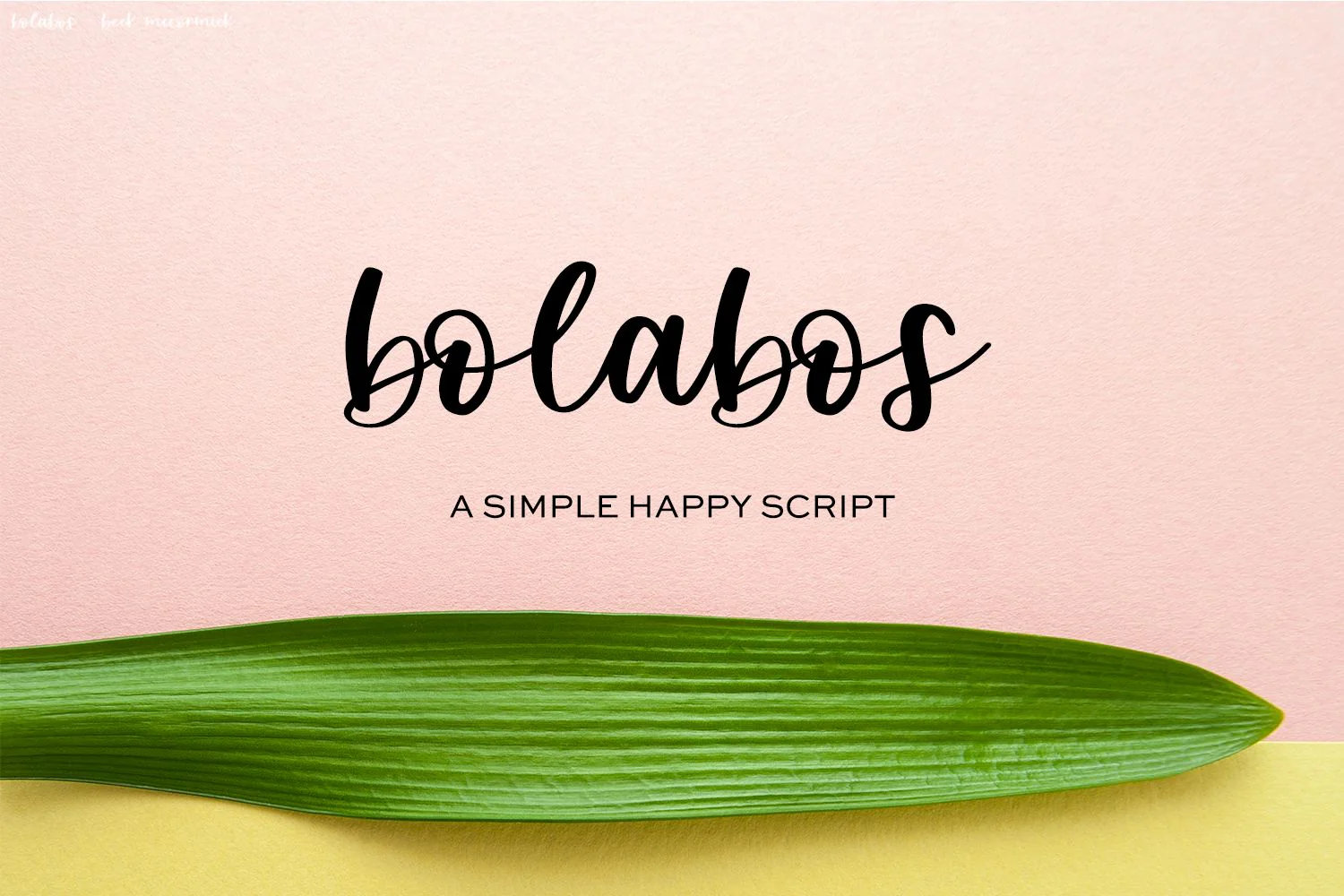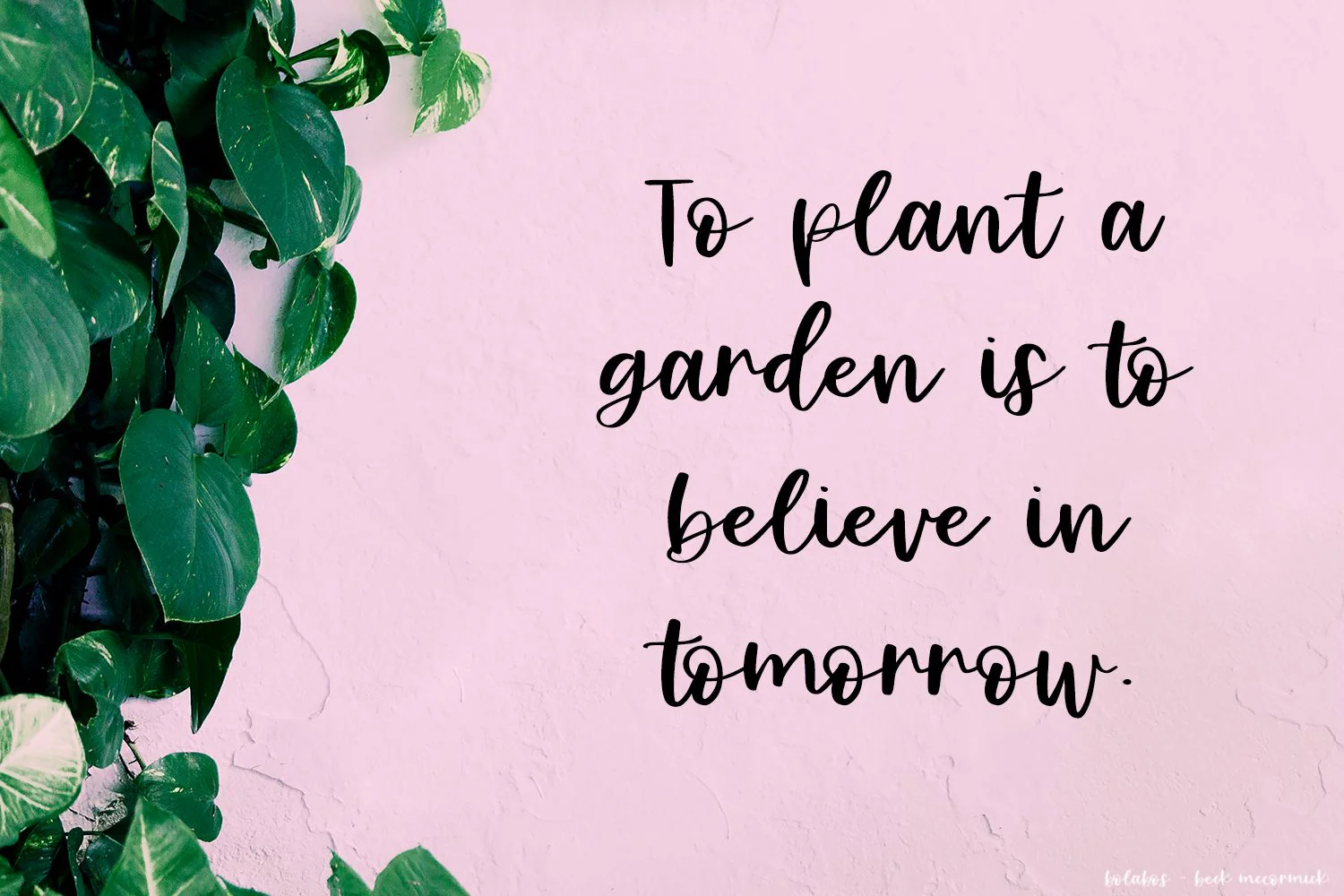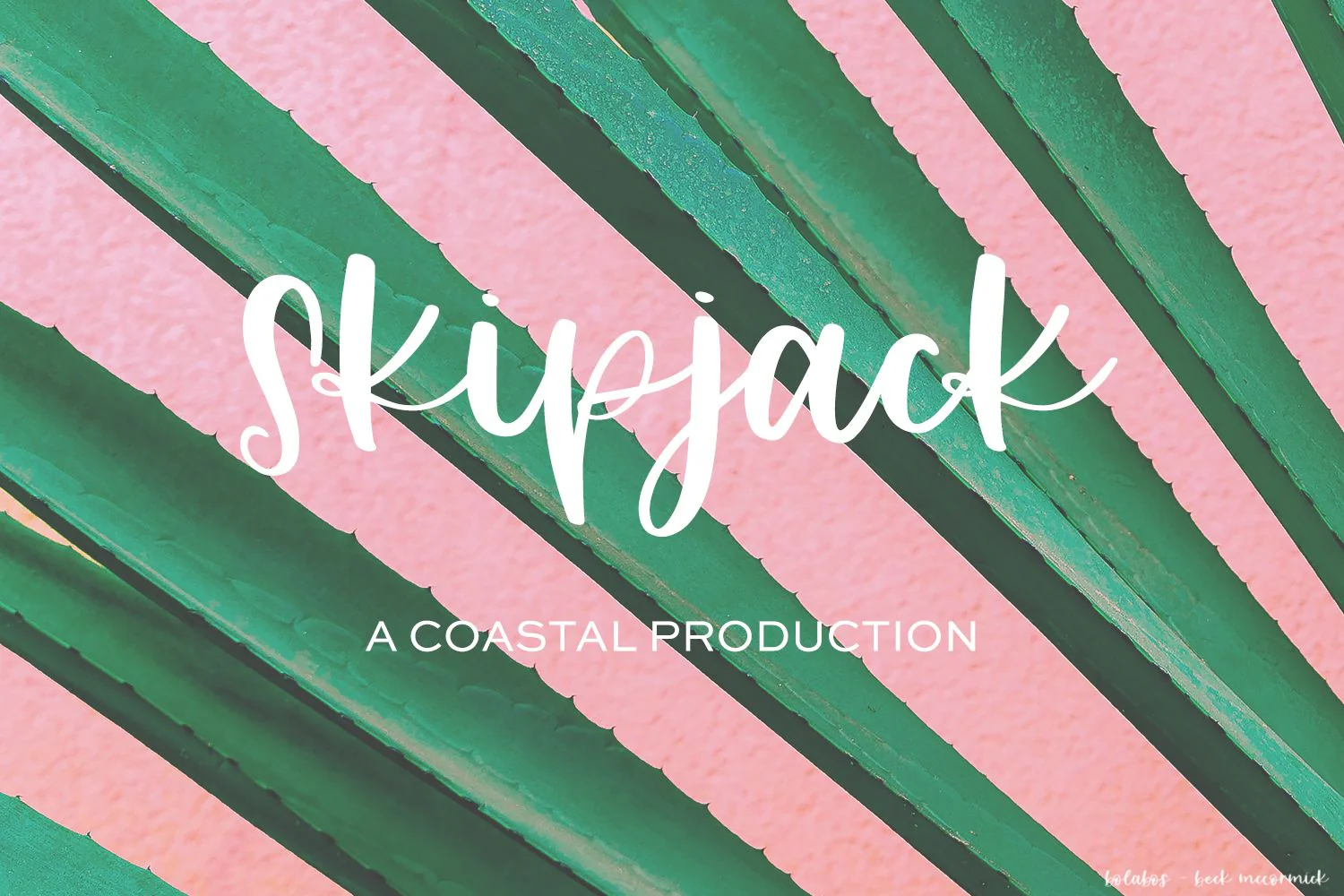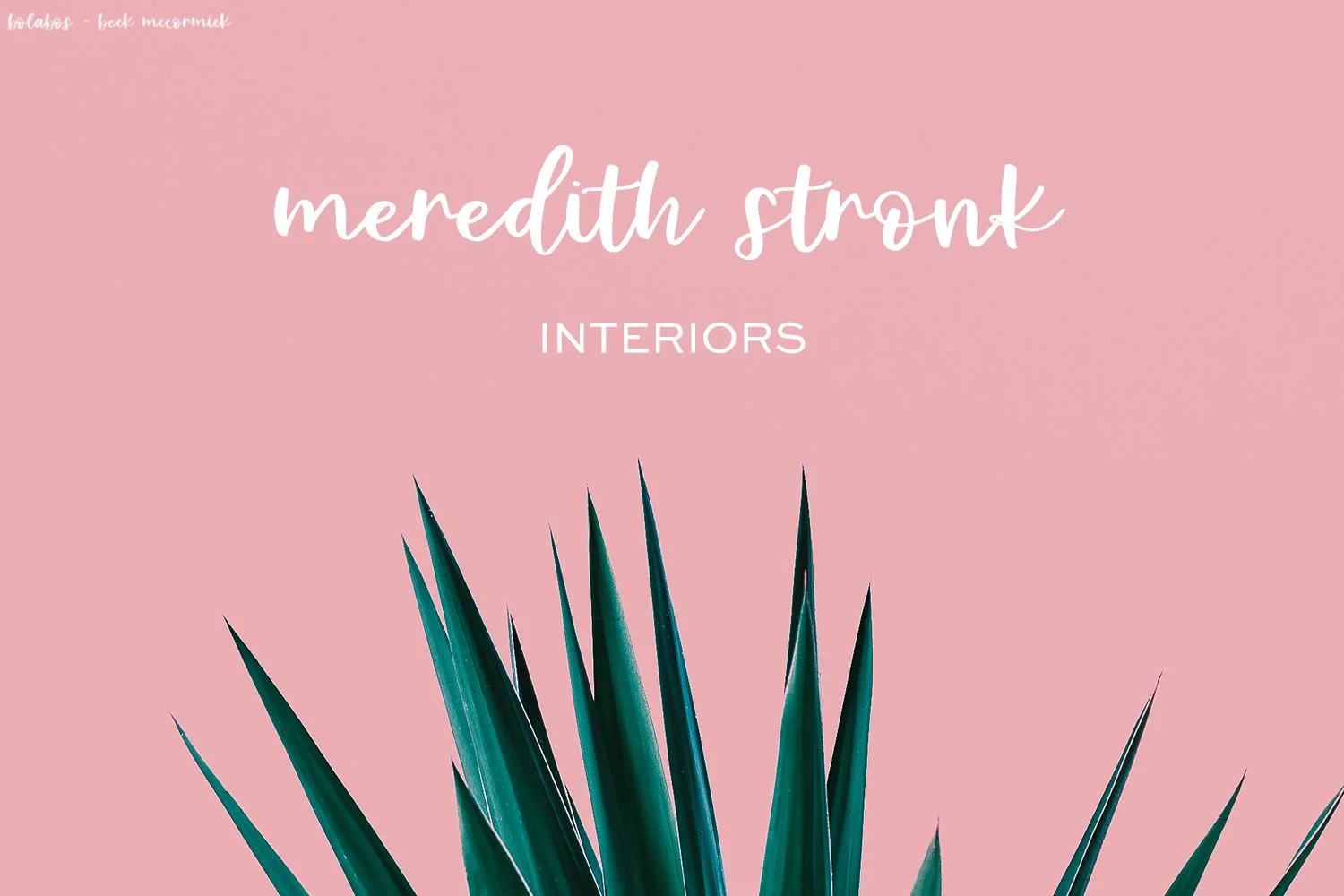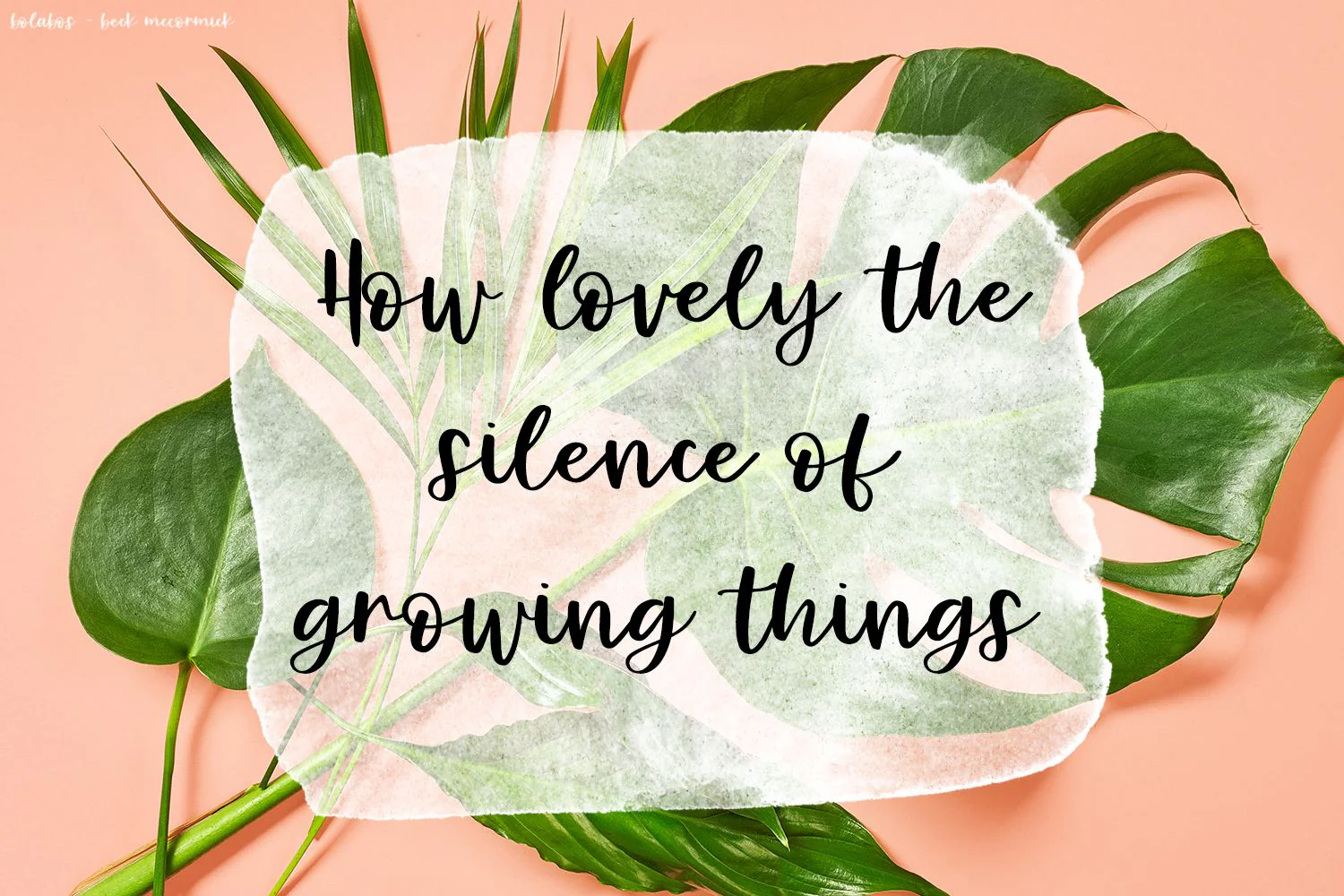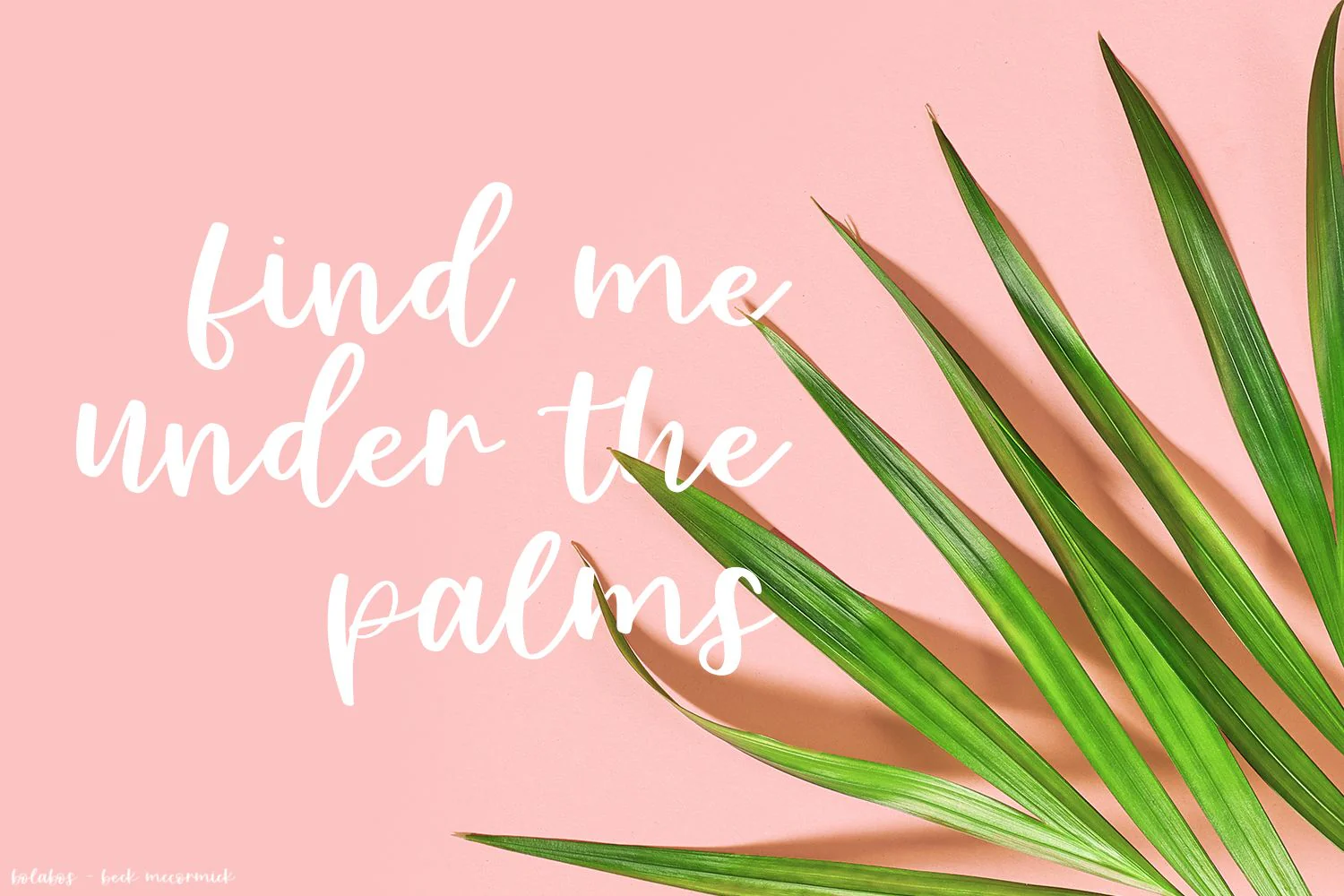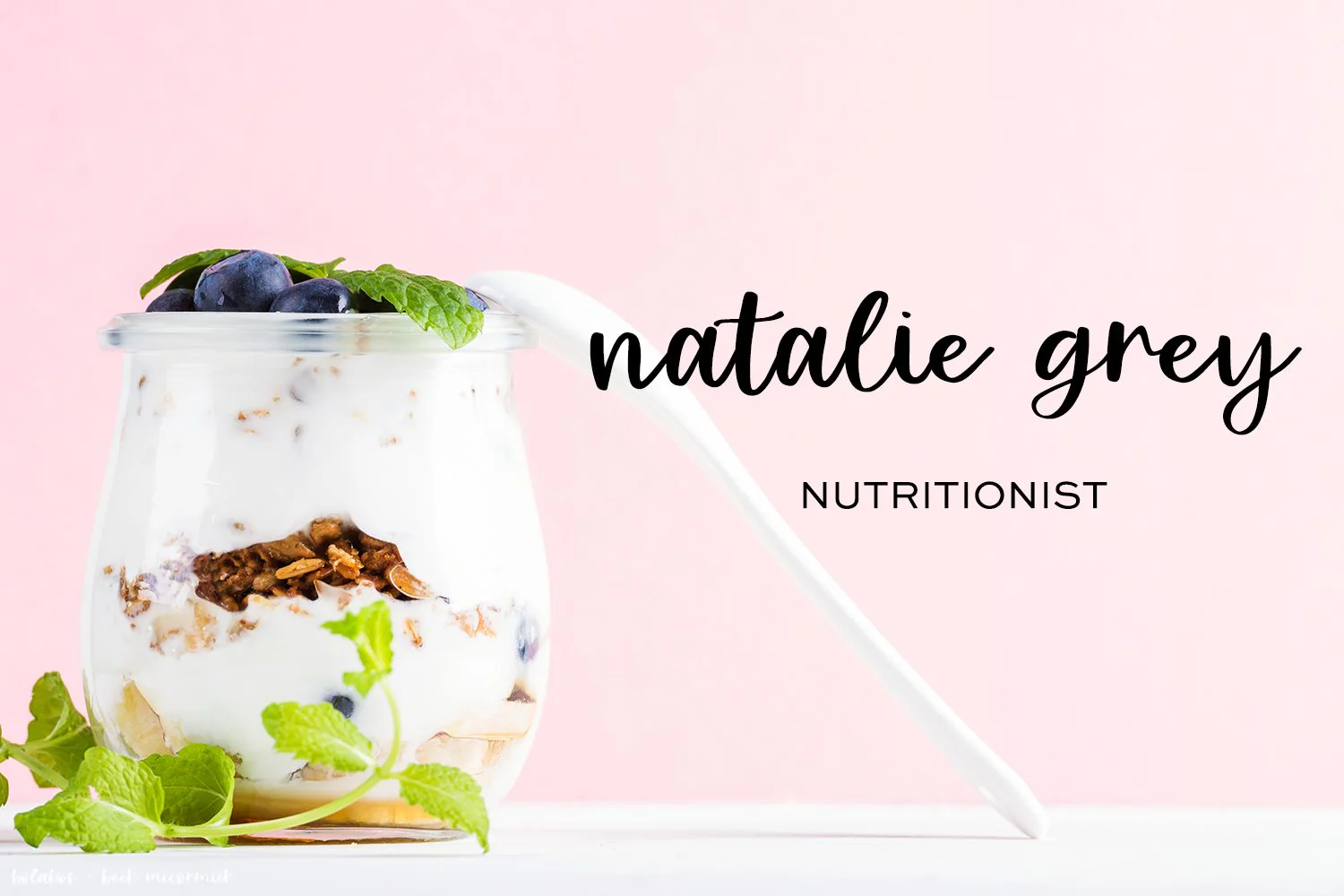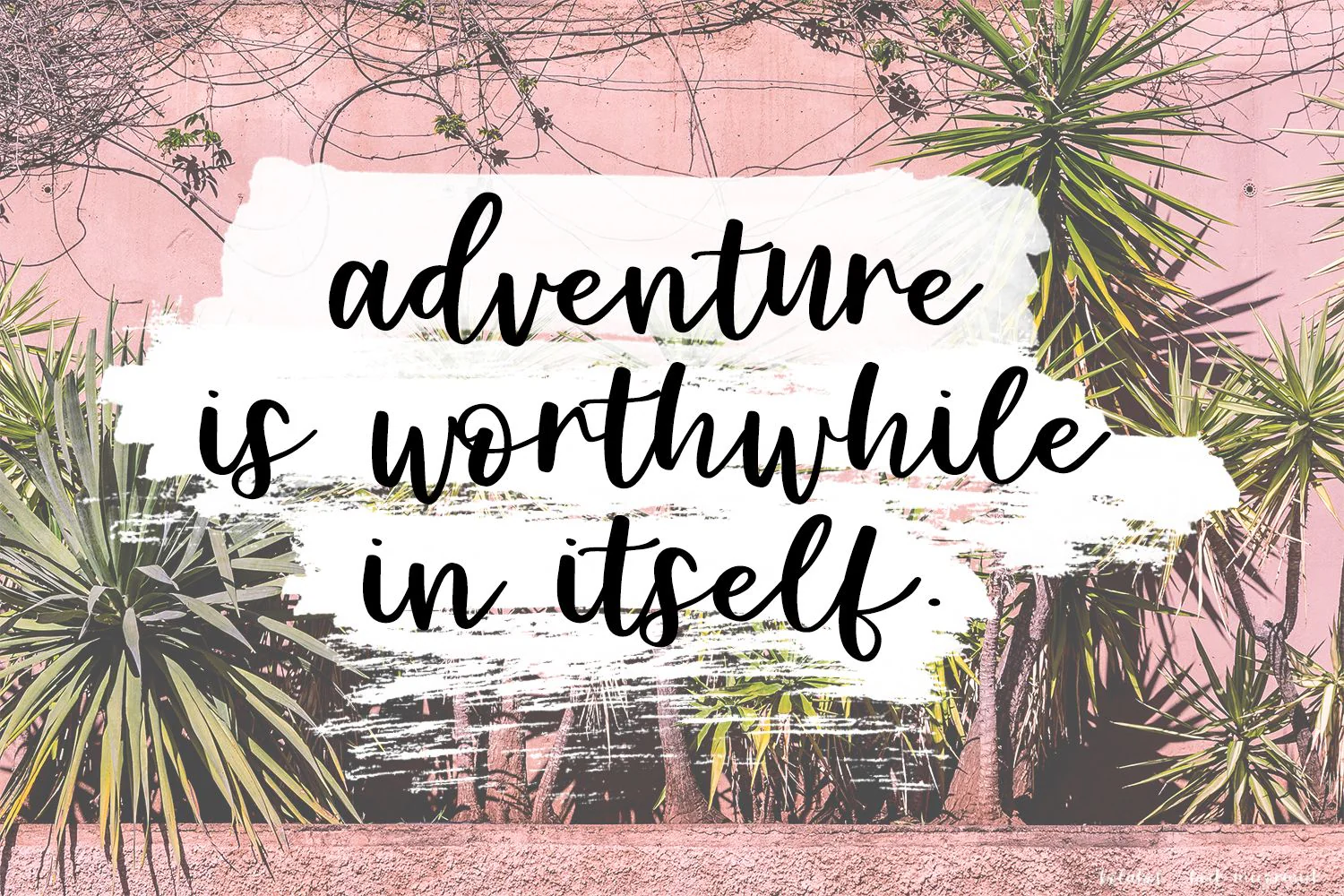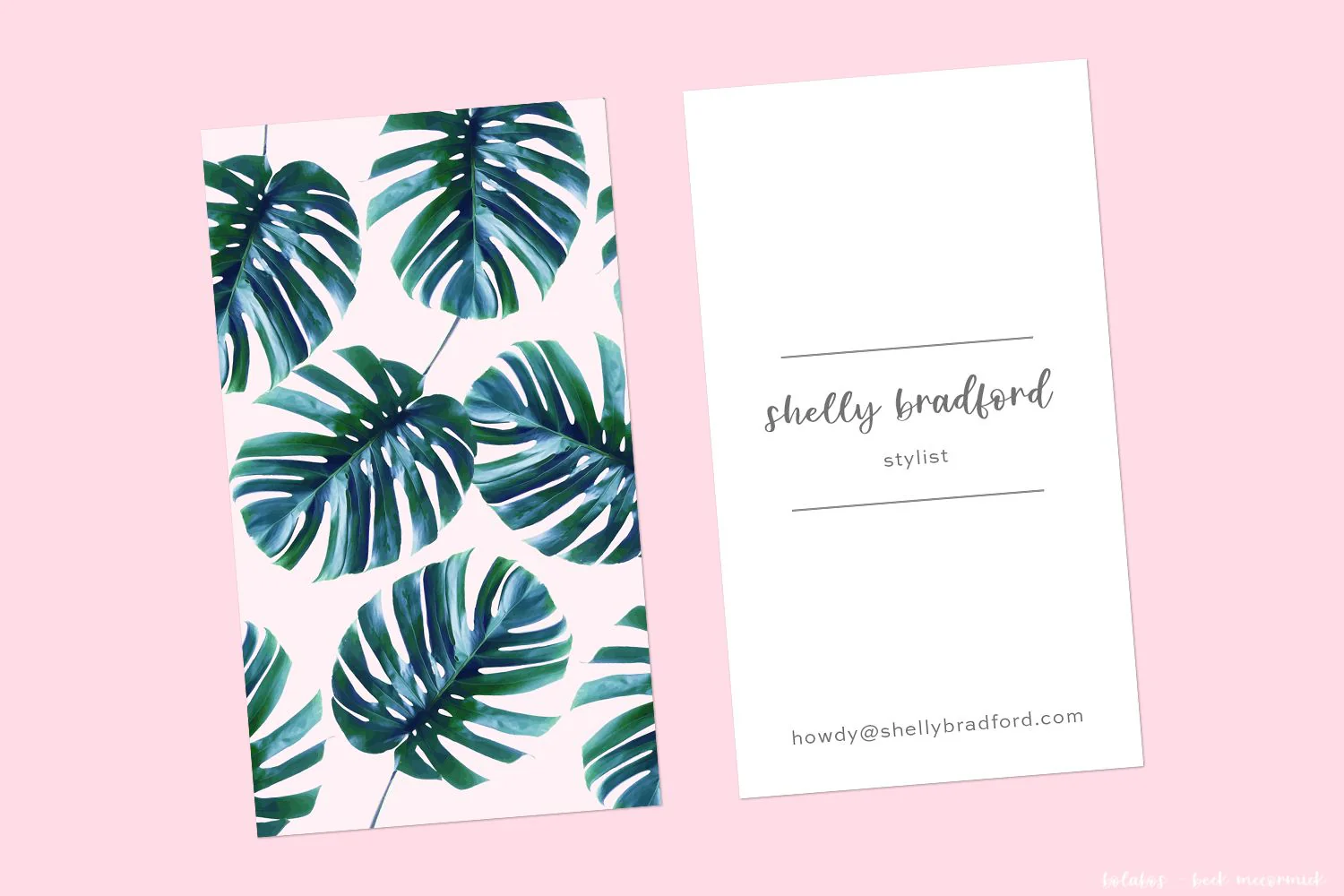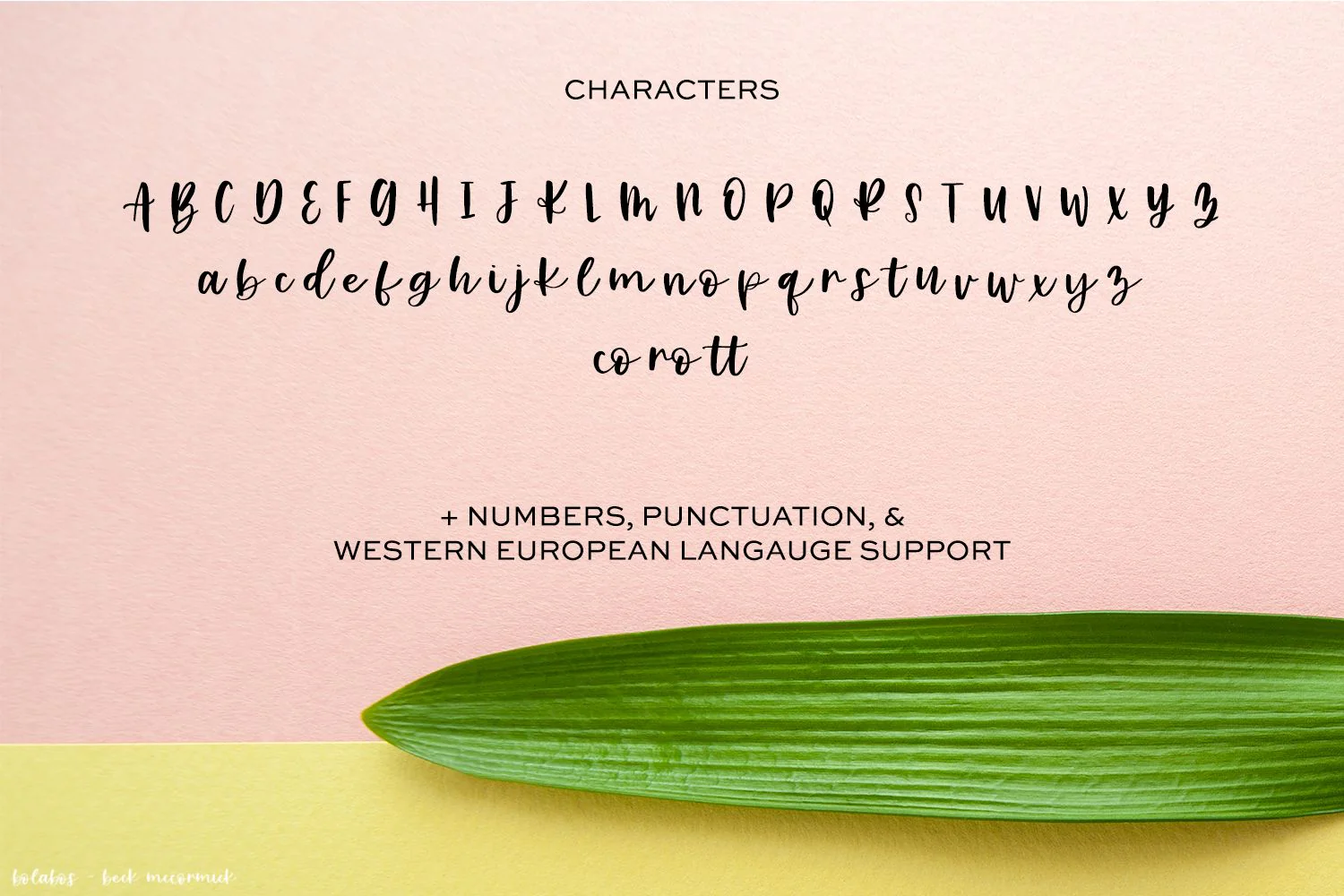
Bolabos Script Font
Bolabos Script is a hand-lettered script font that is clean, legible, and feminine. Designed with a slight bounce & playfulness, Bolabos is a great fit for projects that need a little bit of a girly, whimsical touch without being over the top.
Bolabos is best for:
- clean print design, like magazines + flyers
- header elements that need a feminine touch
- logos + branding
Bolabos includes:
- 26 lowercase alternate characters + co, ro, and tt ligatures
Bolabos Script is a hand-lettered script font that is clean, legible, and feminine. Designed with a slight bounce & playfulness, Bolabos is a great fit for projects that need a little bit of a girly, whimsical touch without being over the top.
Bolabos is best for:
- clean print design, like magazines + flyers
- header elements that need a feminine touch
- logos + branding
Bolabos includes:
- 26 lowercase alternate characters + co, ro, and tt ligatures